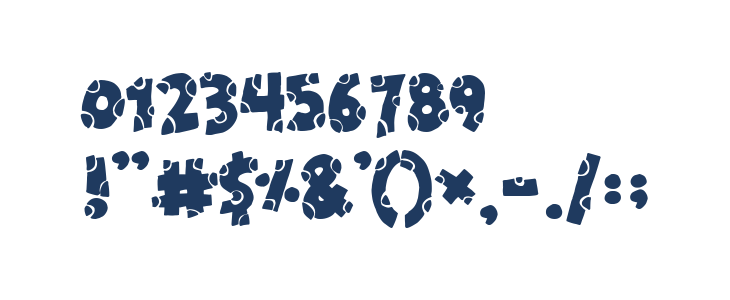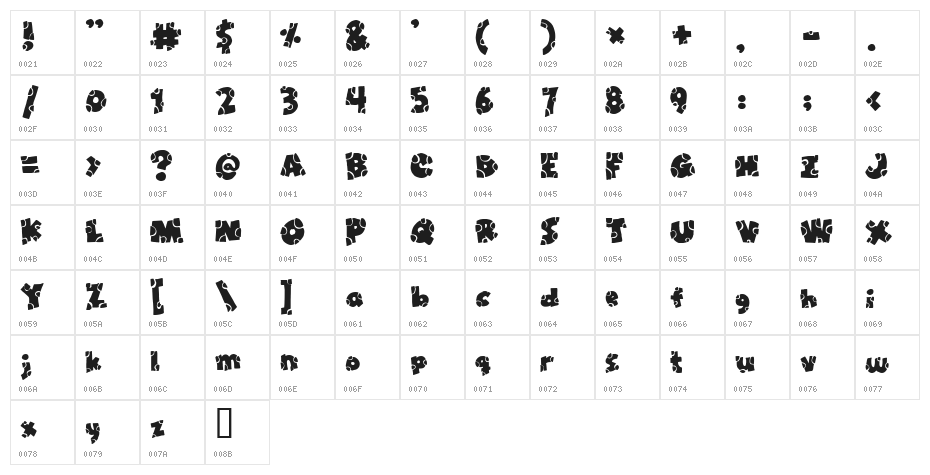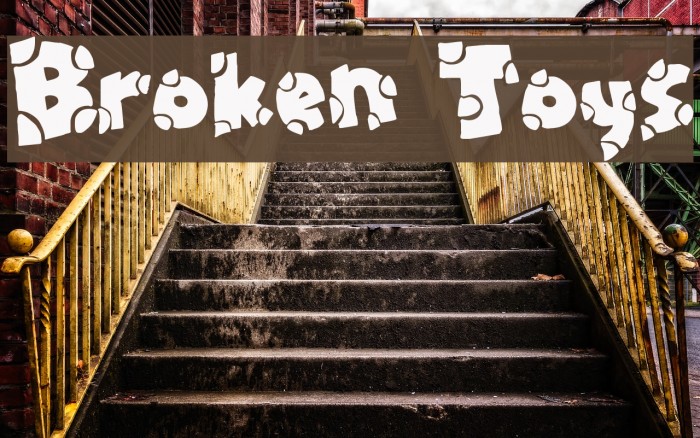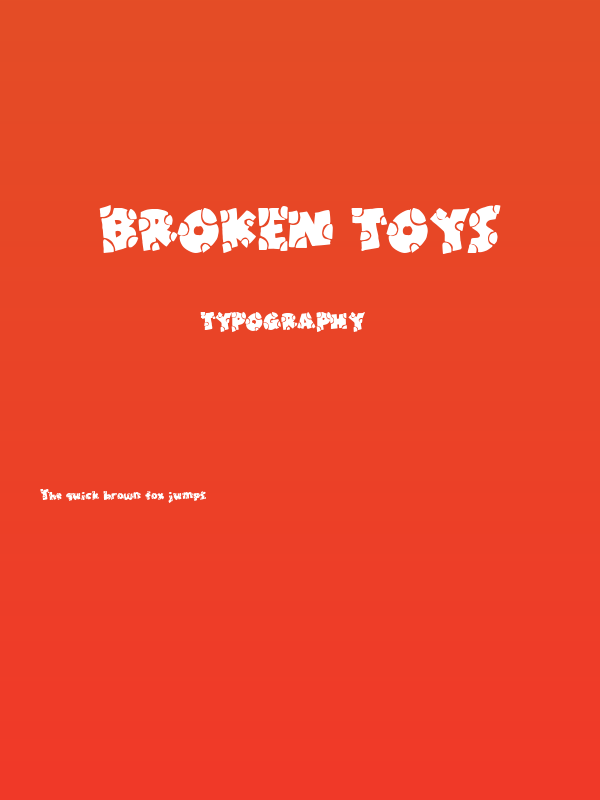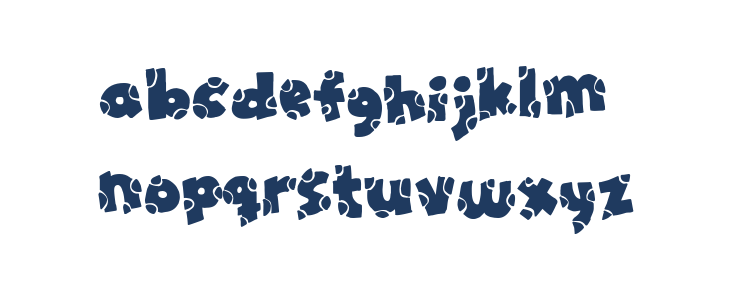
Broken Toys Font
Broken Toys Description
This playful and whimsical font features a unique, fragmented design that resembles broken pieces or jigsaw puzzles. Each character is composed of irregular shapes, giving it a dynamic and chaotic appearance. The bold and chunky letterforms are filled with contrasting black and white patterns, creating a visually striking effect. The font maintains a consistent style across uppercase, lowercase, numbers, and special characters, making it versatile for creative projects. Its distinctive look is perfect for capturing attention and adding a fun, quirky element to any design.
Proposed ProjectsIdeal for children's book covers, playful branding, toy packaging, and creative posters.